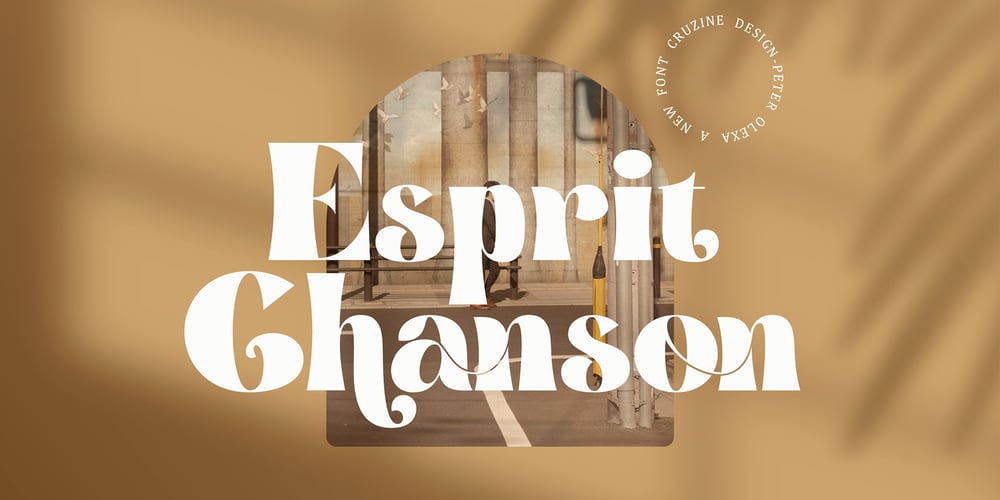
Esprit Chanson Font Family was designed by Peter Olexa and published by Deeezy. Esprit Chanson contains 1 styles and family package options. Trendy, bold & modern style serif font for your fancy projects. Elegant, fashion and classic style on Esprit Chanson font will be great for any branding project. Lot of alternates and ligatures will help you to create unique and original logo design or website header! Enjoy ๐ Multilingual support Lot of alternate characters Lot of ligatures Web fonts Great for modern branding projects!